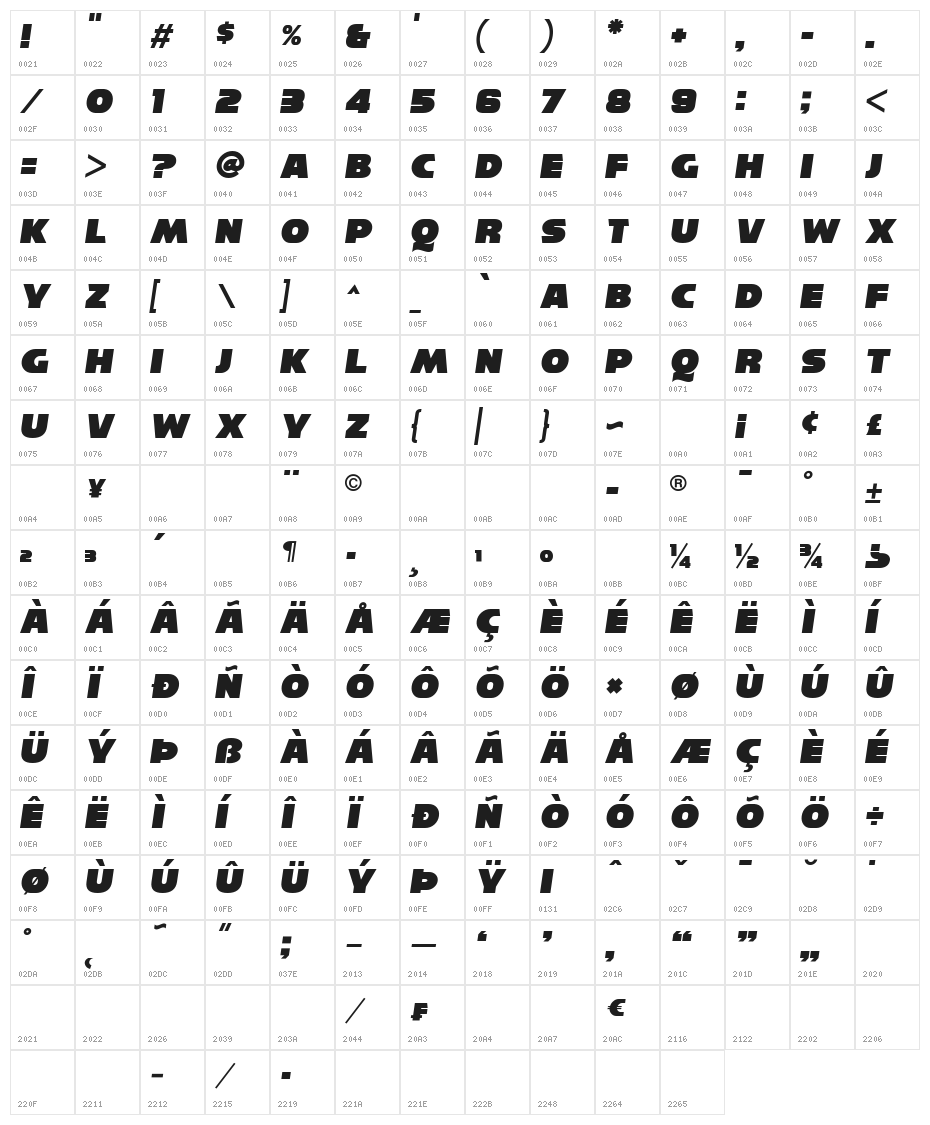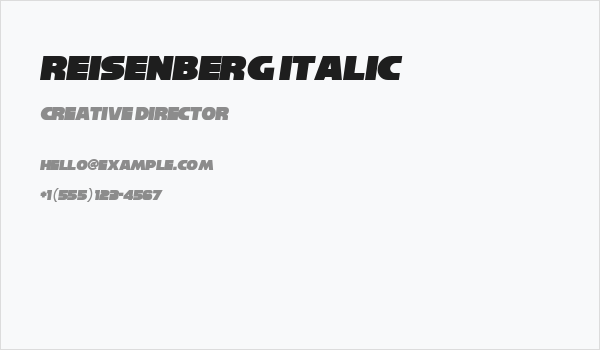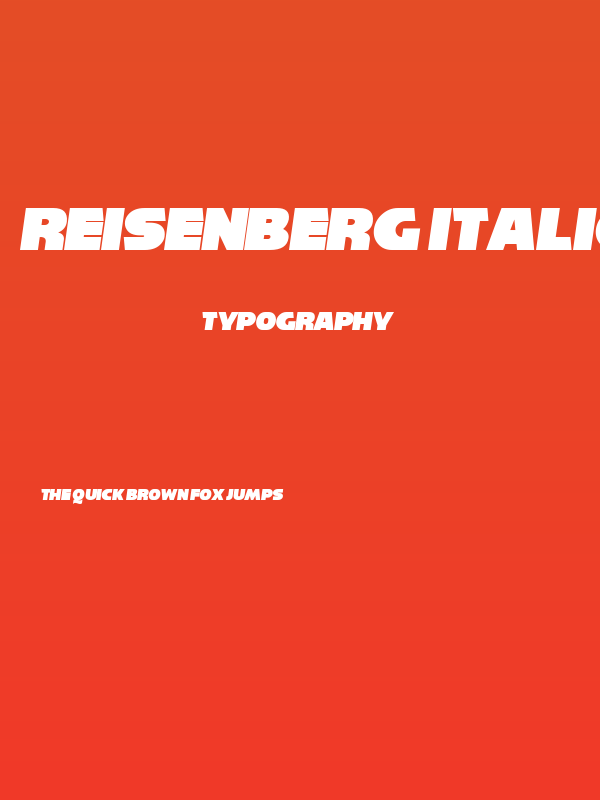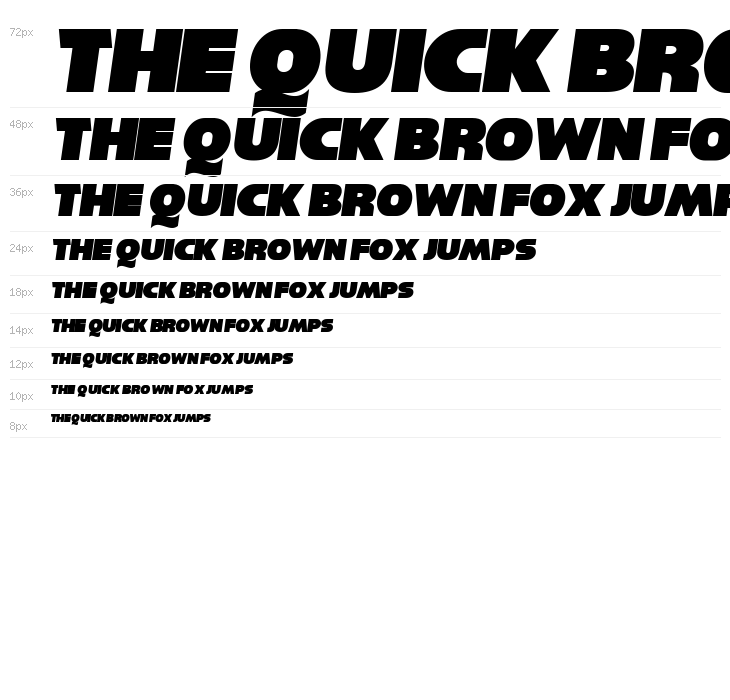
Reisenberg Italic Font
Reisenberg Italic Description
This font features a bold and dynamic style with a strong presence. The characters are heavily weighted, providing a robust and impactful appearance. The italic slant adds a sense of motion and energy, making it suitable for attention-grabbing designs. The uppercase and lowercase letters maintain a consistent thickness, contributing to a cohesive look. The numbers and special characters are designed with the same boldness, ensuring uniformity across all elements. The overall design is modern and assertive, making it ideal for projects that require a strong visual statement.
| Proposed Projects | Ideal for headlines, posters, branding, and advertising materials where a strong impact is desired. |